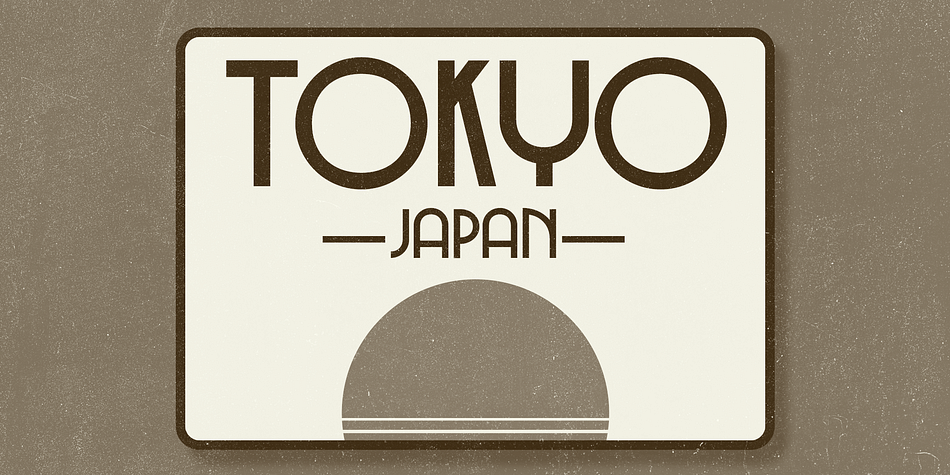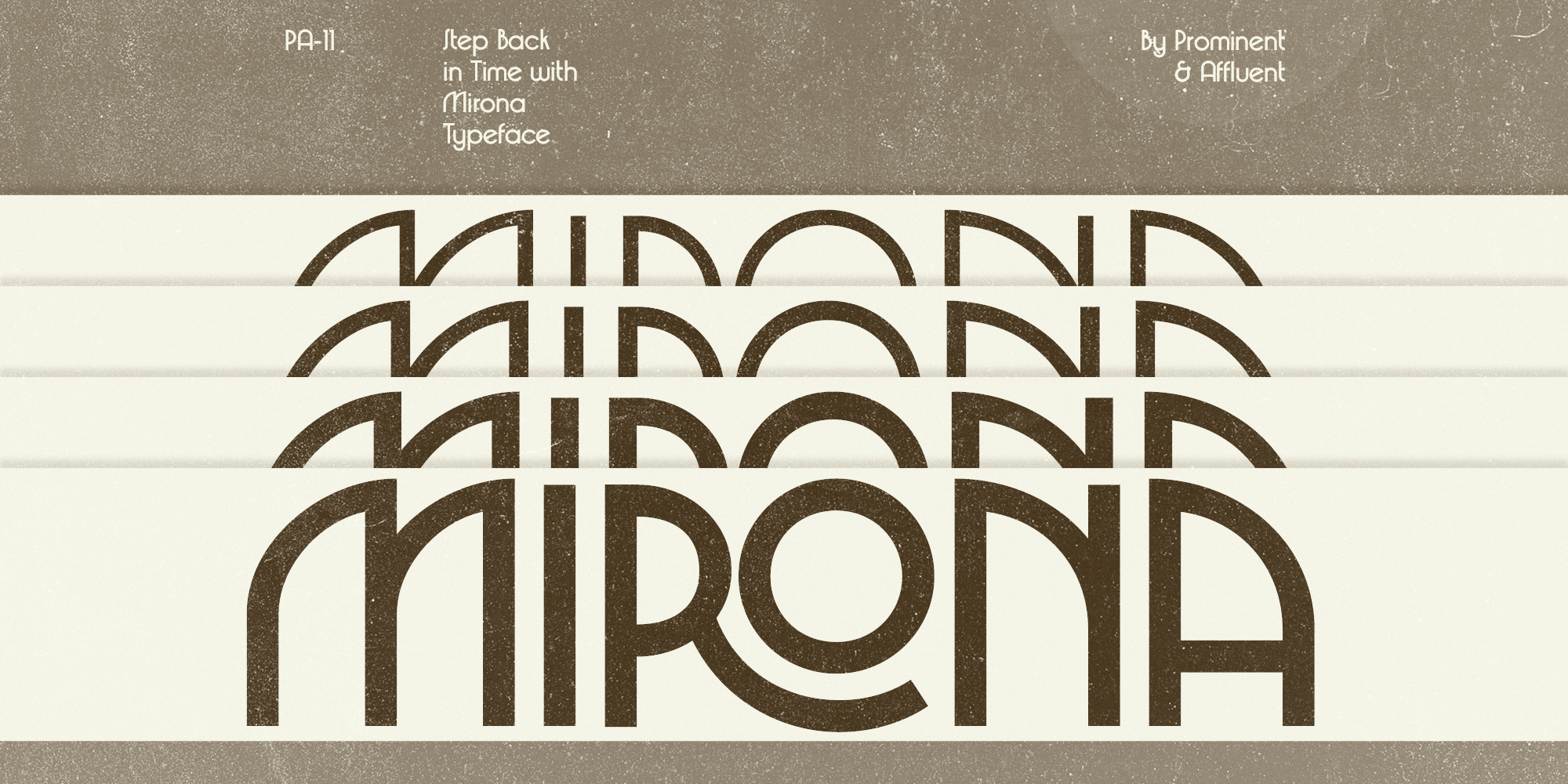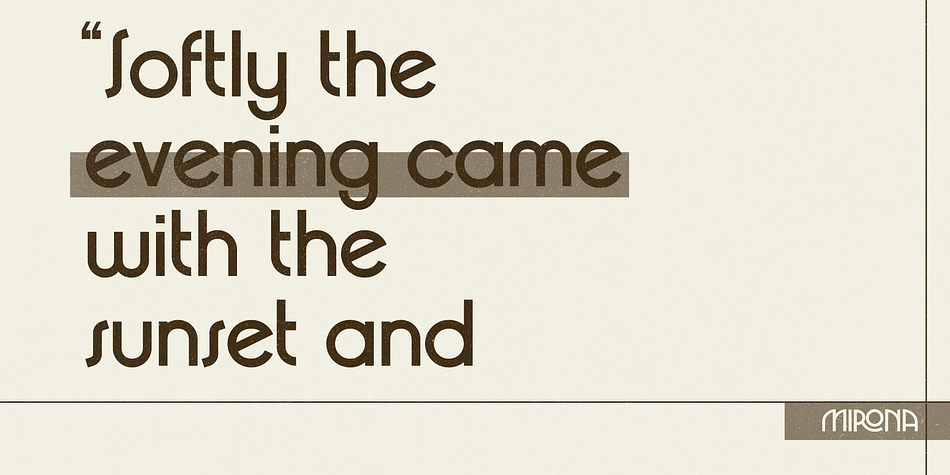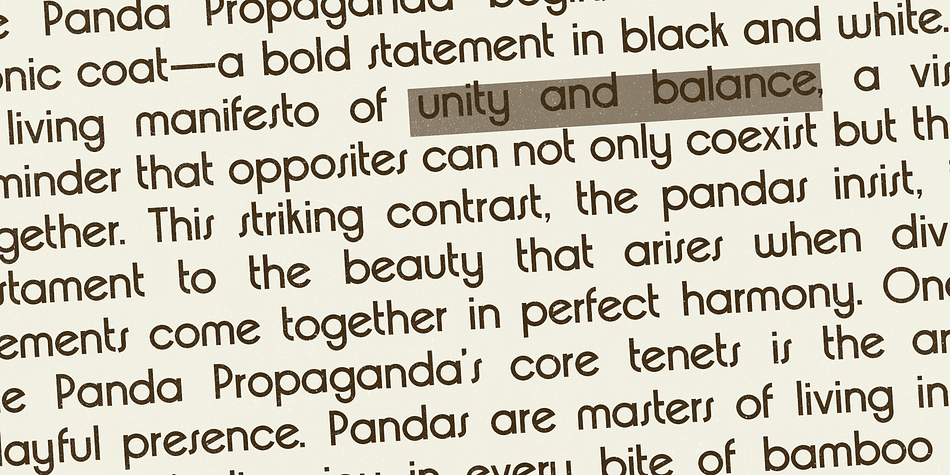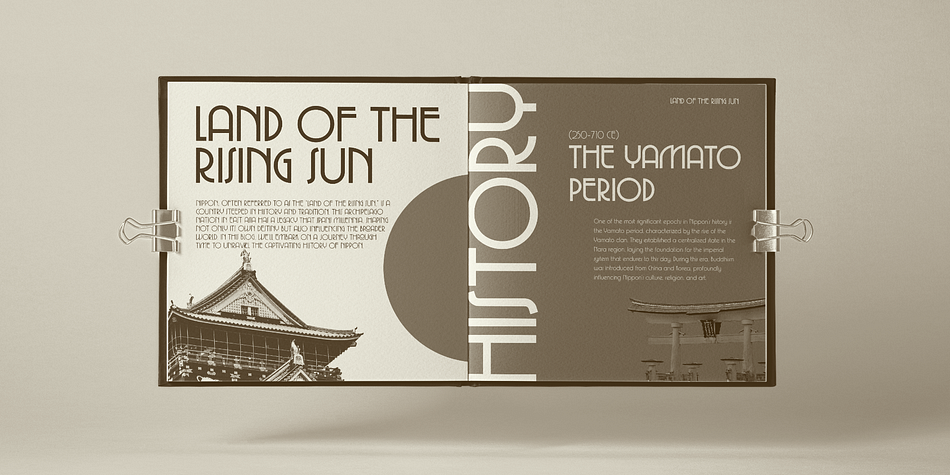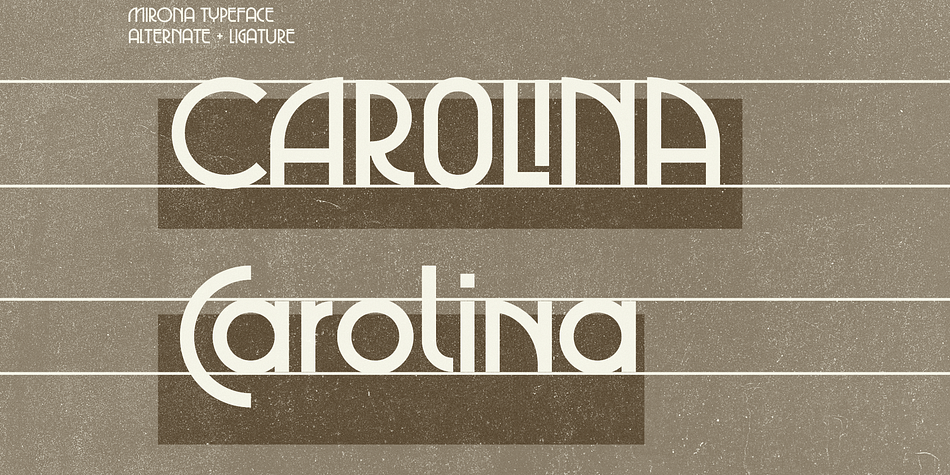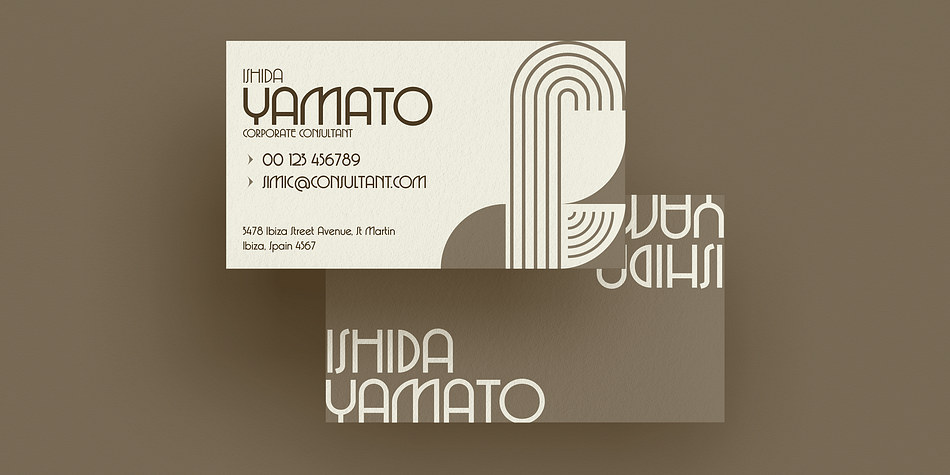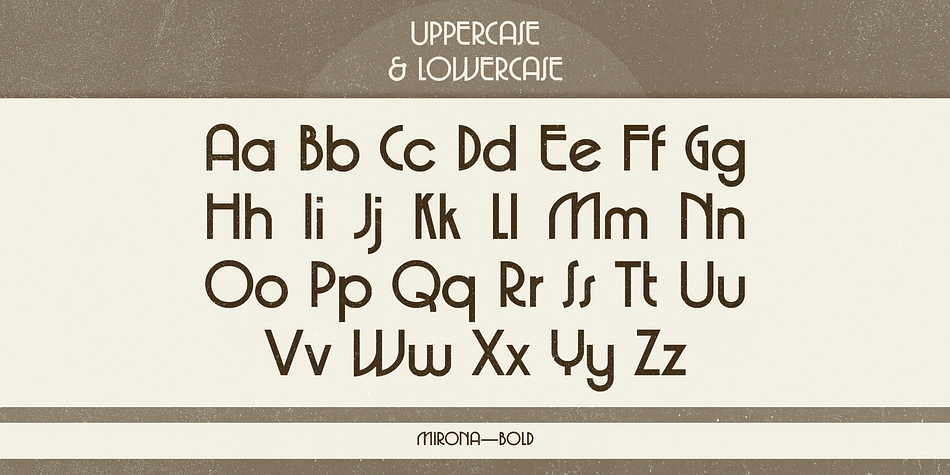
Mirona
Mirona is a retro font family. This typeface has four styles and was published by Prominent & Affluent.
Experience a blast from the past with Mirona Font, a captivating geometric font that effortlessly channels the retro vibes of the 1970s. Named for its intriguing and unique aesthetic, Mirona is the perfect choice for designers seeking to infuse their projects with a sense of nostalgia.
Mirona Font effortlessly captures the essence of the 1970s, evoking a sense of nostalgia and vintage coolness. Whether you’re designing a logo, working on a print publication, or crafting a stunning web layout, Mirona is your go-to font for an authentic retro feel. Mirona Font boasts unique ligatures and multiple character styles that can be used to explore various design possibilities. Its default readability retains a distinctive retro charm. Each character in Mirona Font carries its own uniqueness, providing endless creative potential for your projects.
Mirona Font draws inspiration from the vibrant posters of the 1970s and the geometric designs of the Bauhaus movement.
Prepare to embark on a design journey that pays homage to the iconic 1970s era while embracing the endless creative possibilities of Mirona Font. Get ready to unleash the power of nostalgia in your design projects.